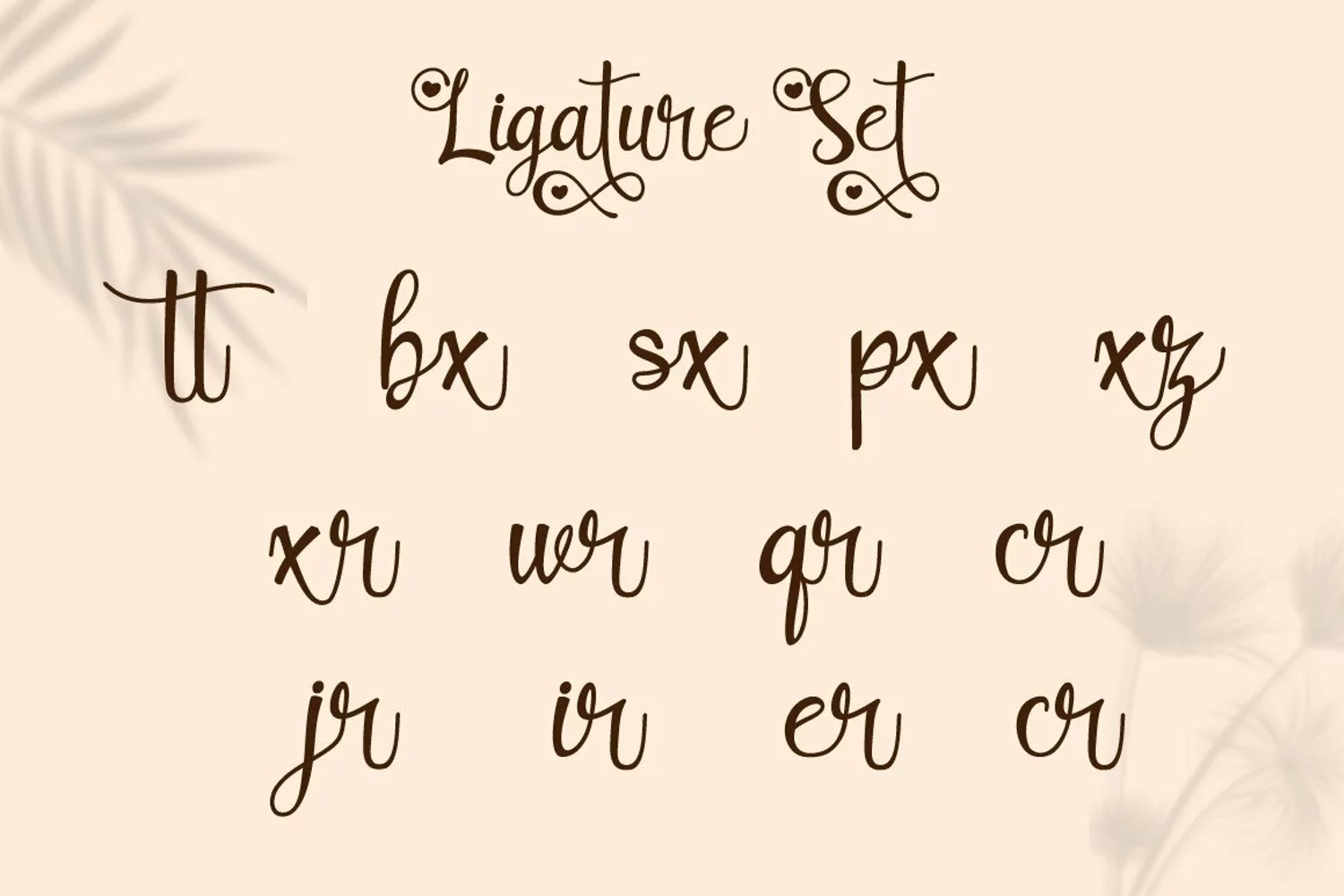
Lovely Couple - Romantic Script With Heart
Introducing a new romantic and a beautiful handwriting script font called "Lovely Couple".
Come with open type feature with a lot of alternates, its help you to make great lettering.
Lovely Couple best uses for invitation, wedding, heading, cover, poster, logos, quotes, product packaging, header, merchandise, social media & greeting cards and many more.
This font is also support multi language.
Comes with feature :
- Alternate
- Number, Punctuation And Symbols
- Multilanguage Support.